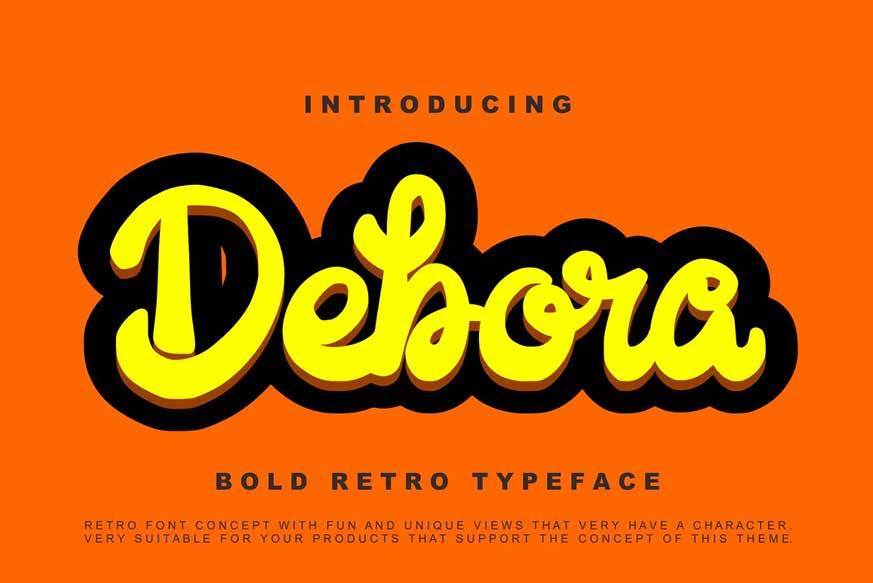
Debora Retro Handwritten Script Font
Debora – Retro Handwritten Script with a calligraphy style, So beautiful on invitation like greeting cards, branding materials, business cards, quotes, posters, and more!